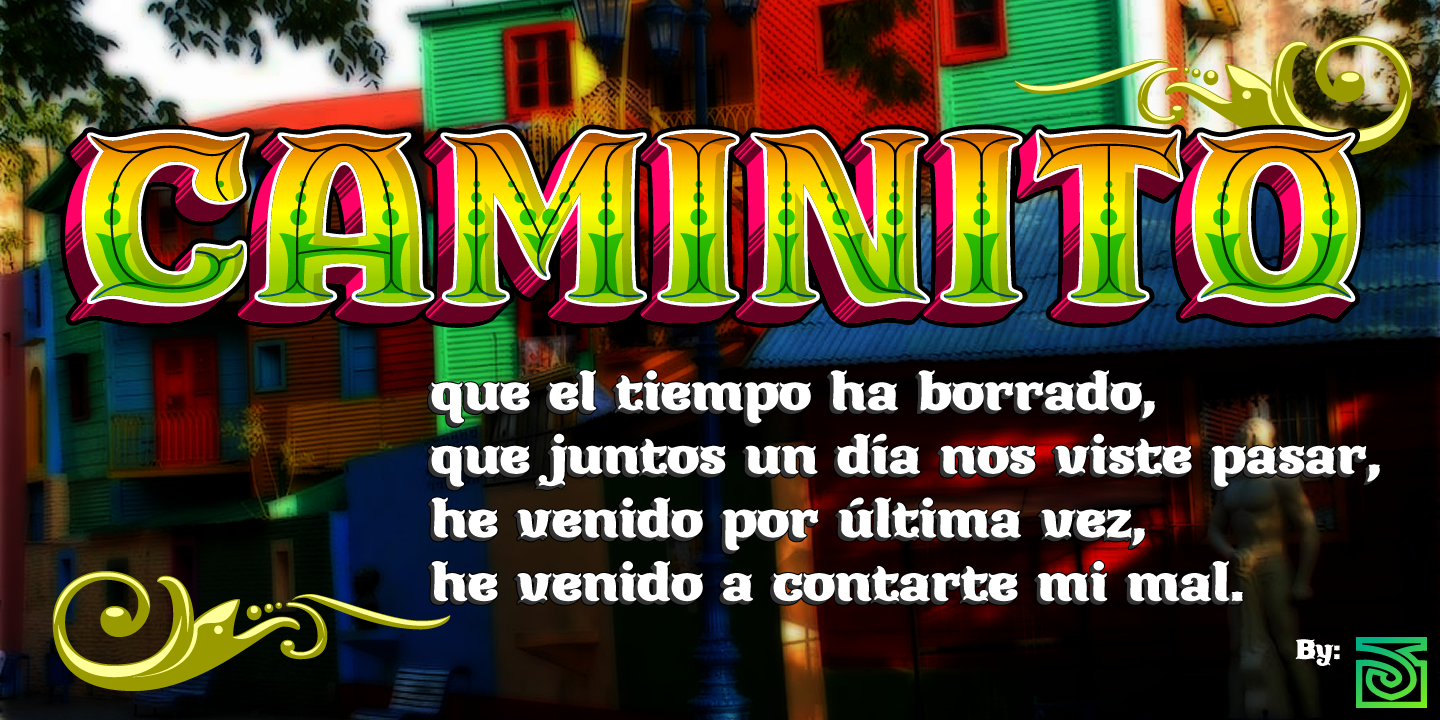
Caminito Font is perfect for vibrant design applications including Latin American branding, cultural festivals, travel marketing, restaurant signage, dance studio graphics, music event promotions, artisan marketplace materials, and celebration invitations. This expressive typeface captures the passionate energy and colorful spirit of Latin culture and street life.
What makes Caminito Font exciting is its authentic representation of Latin American street art and cultural vibrancy through dynamic letterforms that dance with rhythmic energy. The font features lively curves and expressive character variations that evoke the warmth and passion of Latin communities. Its celebratory aesthetic communicates joy, culture, and artistic expression that resonates with diverse audiences.
The Caminito Font family includes various cultural styles such as Regular, Bold, Fiesta, and decorative alternates with ornamental flourishes that enhance the Latin American theme. These expressive options provide comprehensive design solutions for creating authentic cultural brand identities that celebrate heritage and community spirit.
This distinctive display typeface brings genuine Latin cultural authenticity to contemporary design projects. Cultural organizations and Latin-inspired brands choose Caminito Font Free Download for its exceptional ability to communicate cultural pride and festive energy. The font's street art inspiration makes it perfect for cultural centers, Latin restaurants, and celebration events that want to honor Hispanic heritage. Its vibrant character ensures memorable visual impact while maintaining the authentic aesthetic that defines exceptional culturally-inspired design work.